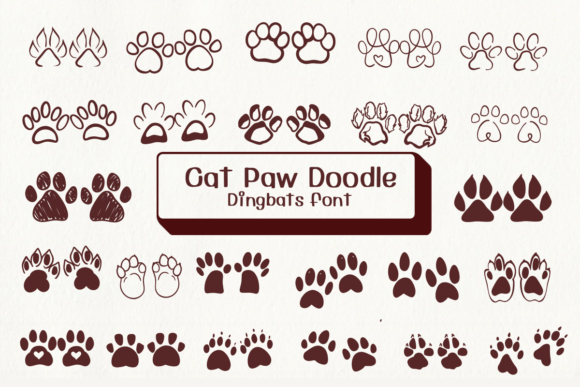
The Purr-fect Addition to Your Design Arsenal: Cat Paw Doodle Font
I’ll never forget the time I was working on a project for a pet grooming client, and I just couldn’t find the right font to match their playful brand. I scrolled through page after page of Google results, but nothing seemed quite right. That was until I stumbled upon the Cat Paw Doodle font. It was love at first sight! The adorable cat paw illustrations and whimsical feel were exactly what I needed to bring my design to life.
- ✨ Adorable and playful cat paw illustrations that add a touch of whimsy to any design
- ✅ Variety of sketchy outlines and filled prints to suit different design needs
- 💕 Perfect for pet lovers, crafting projects, labels, kids’ designs, and animal-themed branding
- 🎉 Easy to use and navigate, even for those new to dingbats fonts
While the Cat Paw Doodle font is a fantastic addition to any design arsenal, there are a few things to keep in mind. ⚠️ Some users may find that the font can be a bit overwhelming if overused, so it’s essential to balance it with other design elements. 🤔 Additionally, the font may not be suitable for more formal or professional designs, as it’s undoubtedly playful and whimsical.
The Designer Inspiration Behind Cat Paw Doodle
The Cat Paw Doodle font was created with pet lovers in mind. The designer, a self-proclaimed cat mom, wanted to create a font that captured the playful and affectionate nature of our feline friends. With a background in illustration and a passion for typography, she poured her heart and soul into crafting a unique and adorable font that’s sure to delight.
Q: What type of designs is Cat Paw Doodle best suited for?
A: Cat Paw Doodle is perfect for pet lovers, crafting projects, labels, kids’ designs, and animal-themed branding.